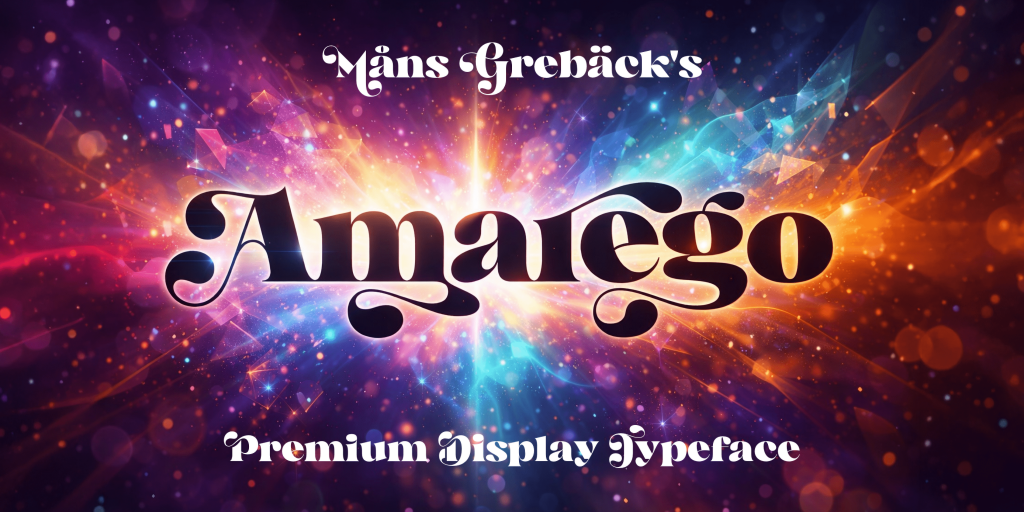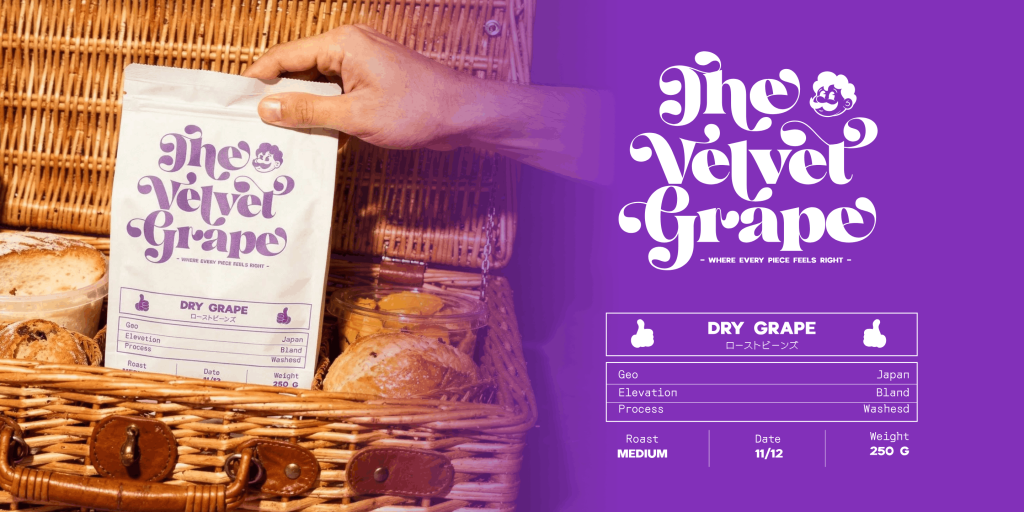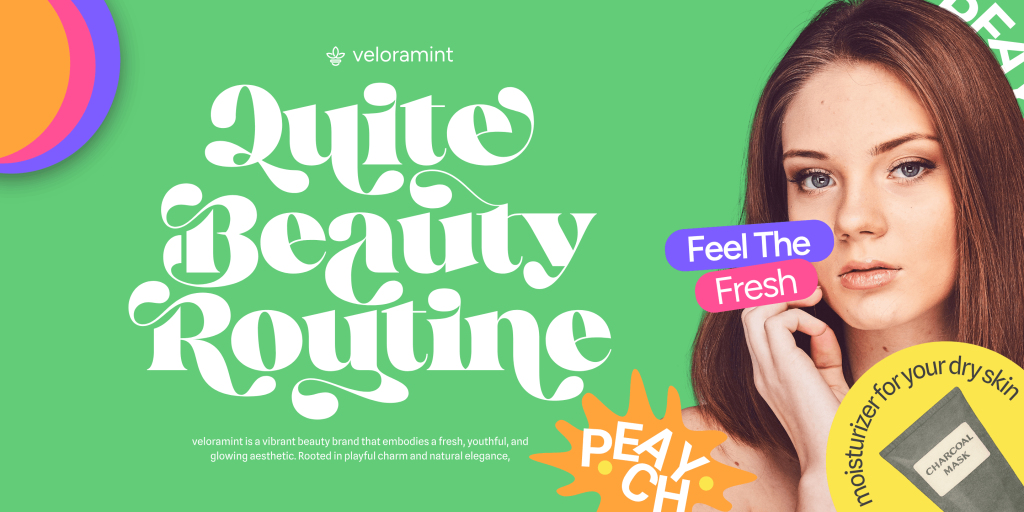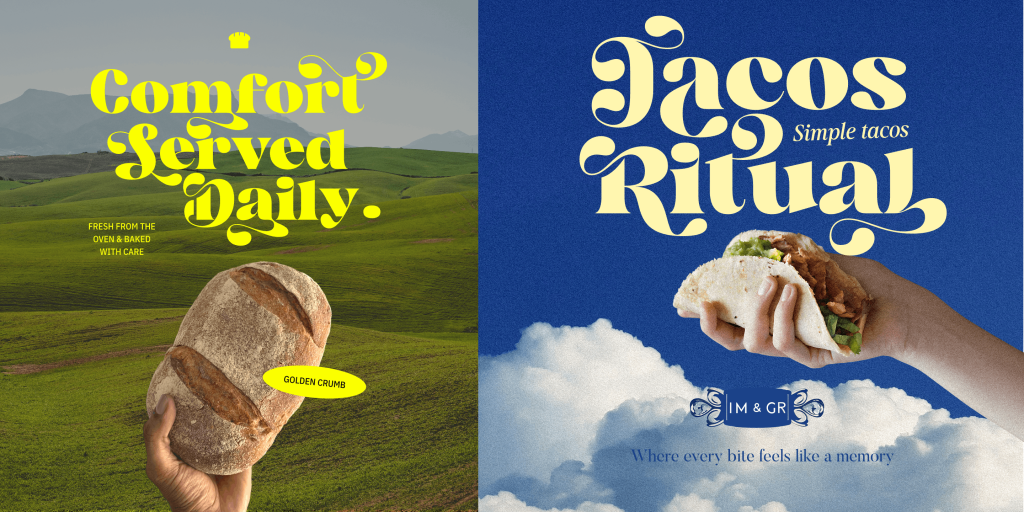
Amarego
Amarego is a decorative display typeface with a flowing presence and a soft sense of drama.
The letterforms are bold and rounded, with sweeping curves and expressive terminals that give the font a lively rhythm.